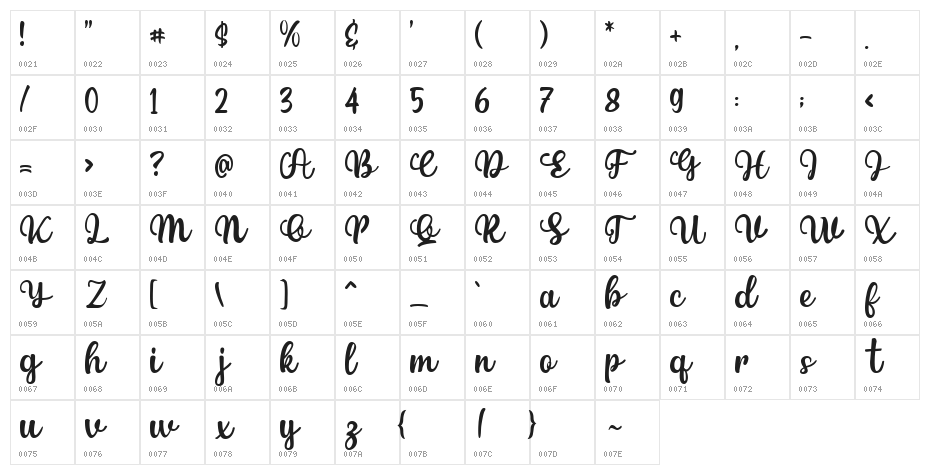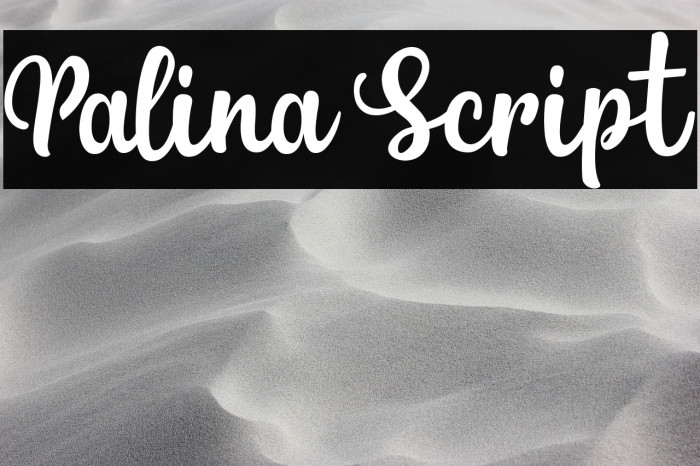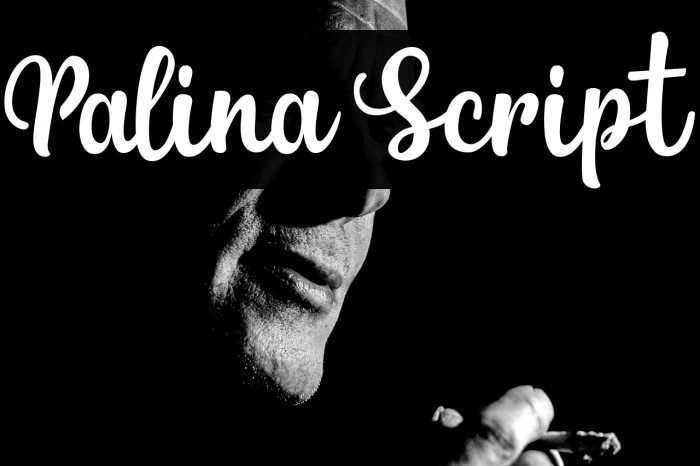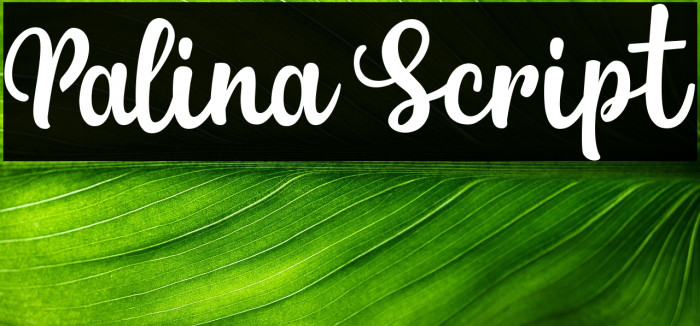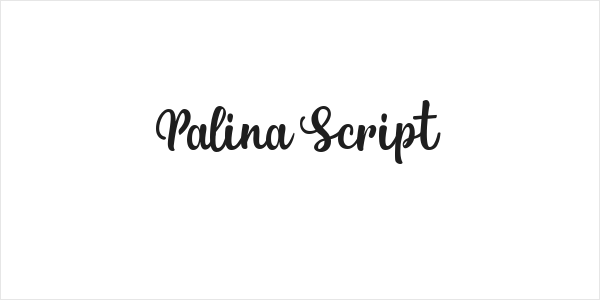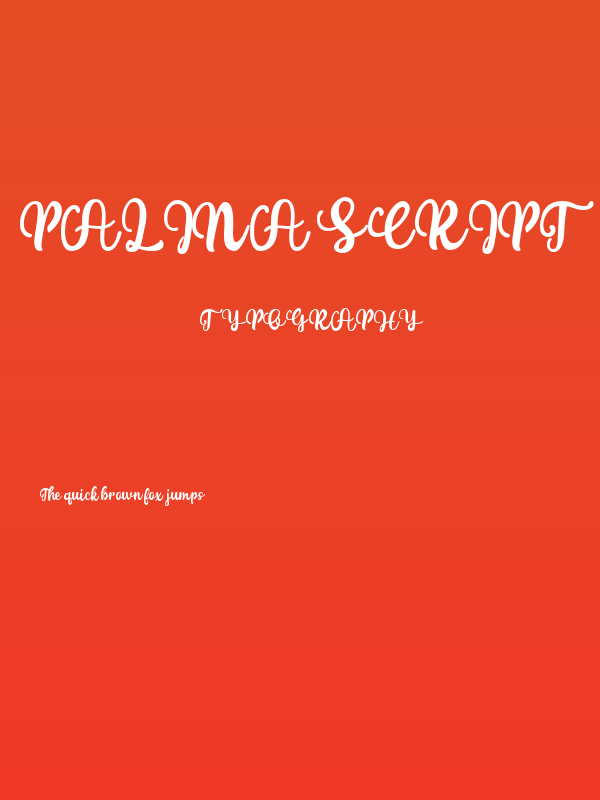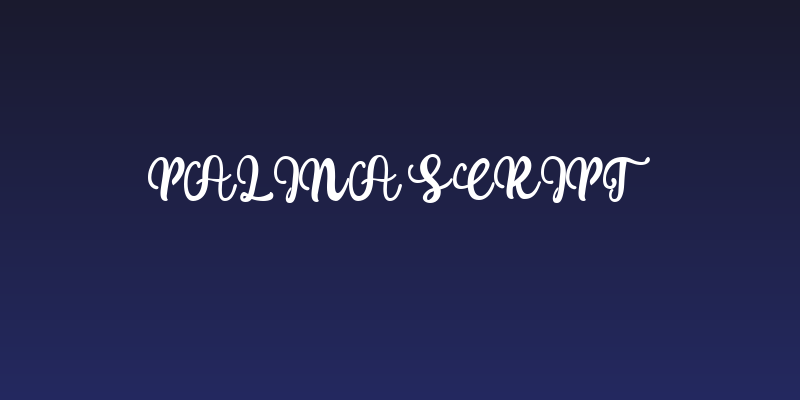
Palina Script Font
Palina Script Description
This font features a lively and flowing script style with a bold presence. The characters are connected, giving it a cursive appearance that is both elegant and playful. The uppercase letters maintain a consistent height, while the lowercase letters have a slight slant, enhancing the fluidity of the design. The numerals are clear and distinct, matching the overall style of the alphabet. Special characters are included, maintaining the same bold and connected style. This font is ideal for creating a personal and inviting atmosphere.